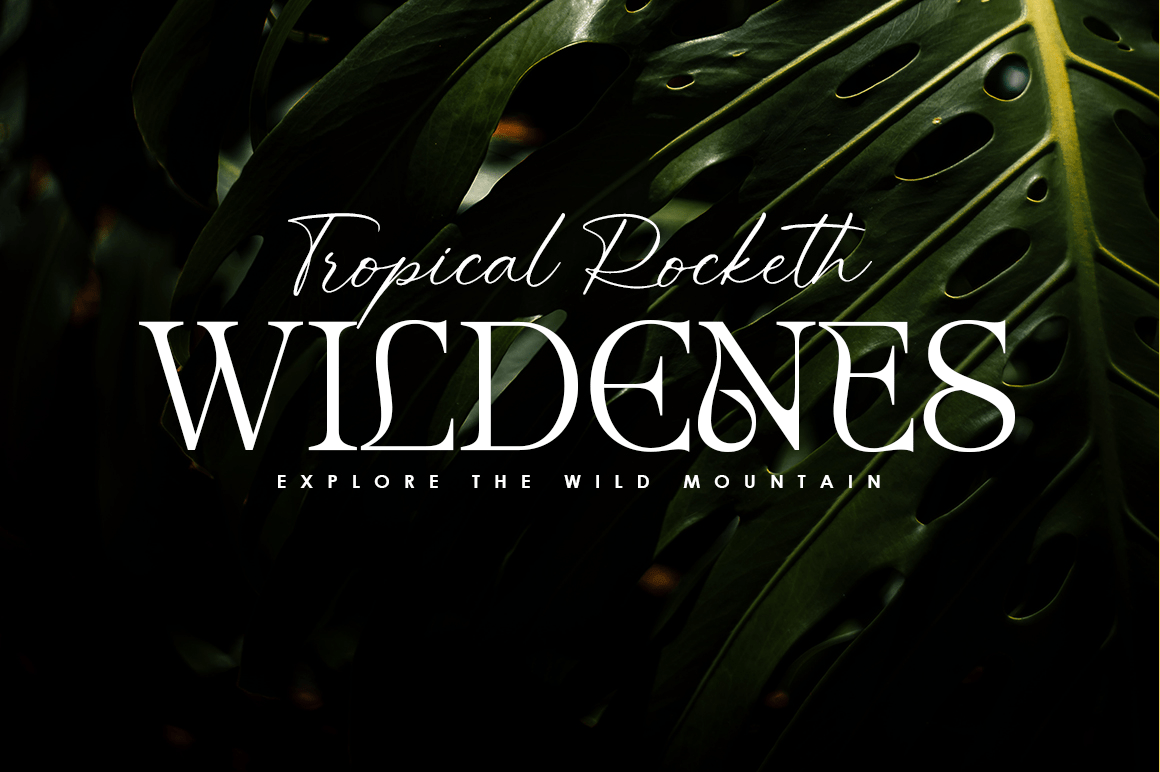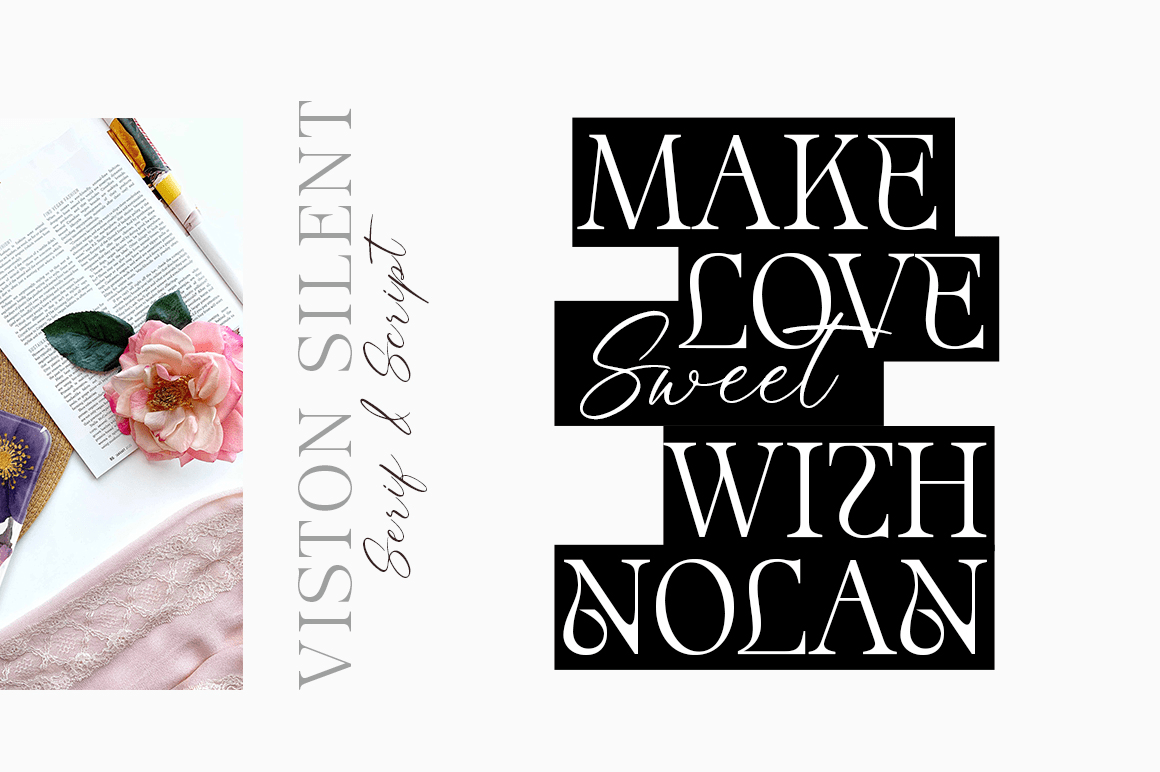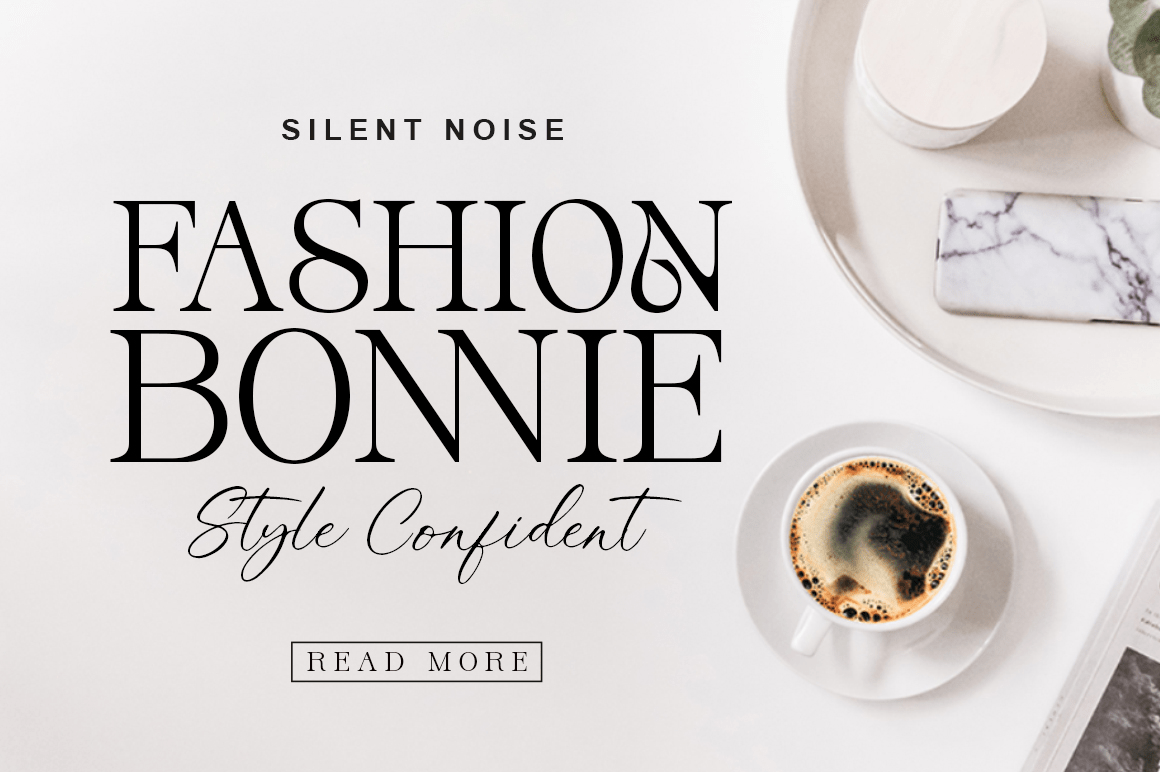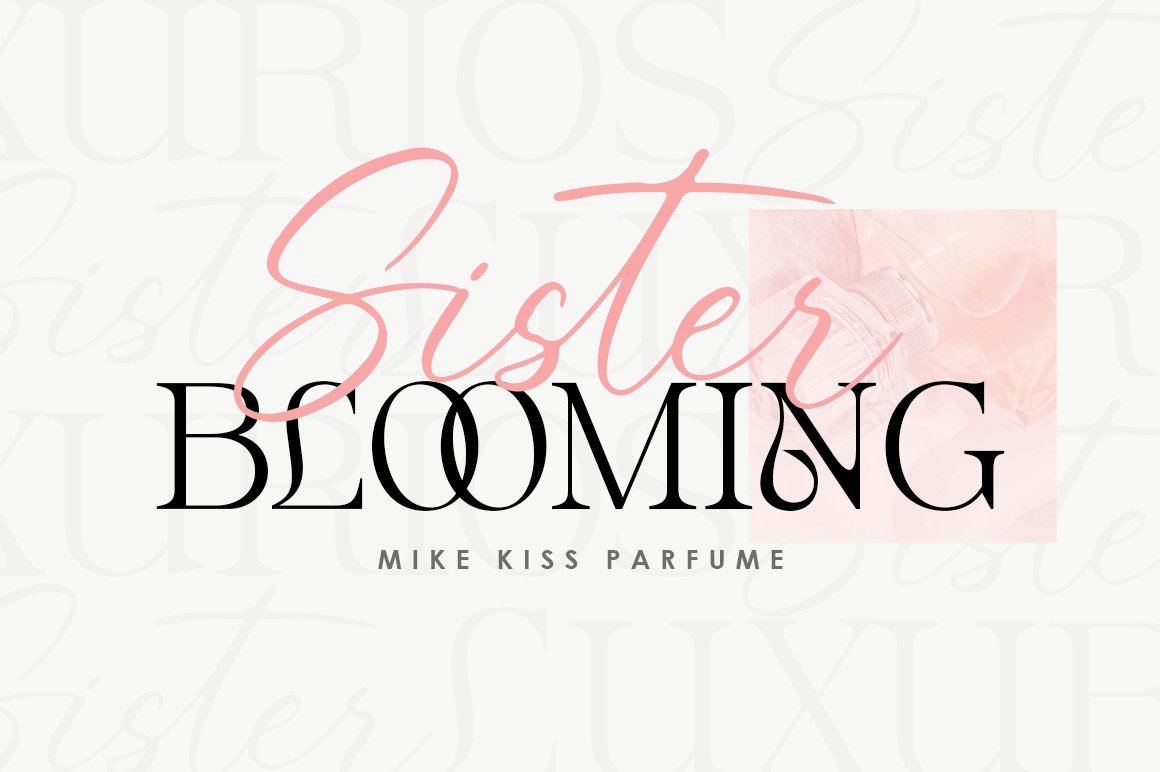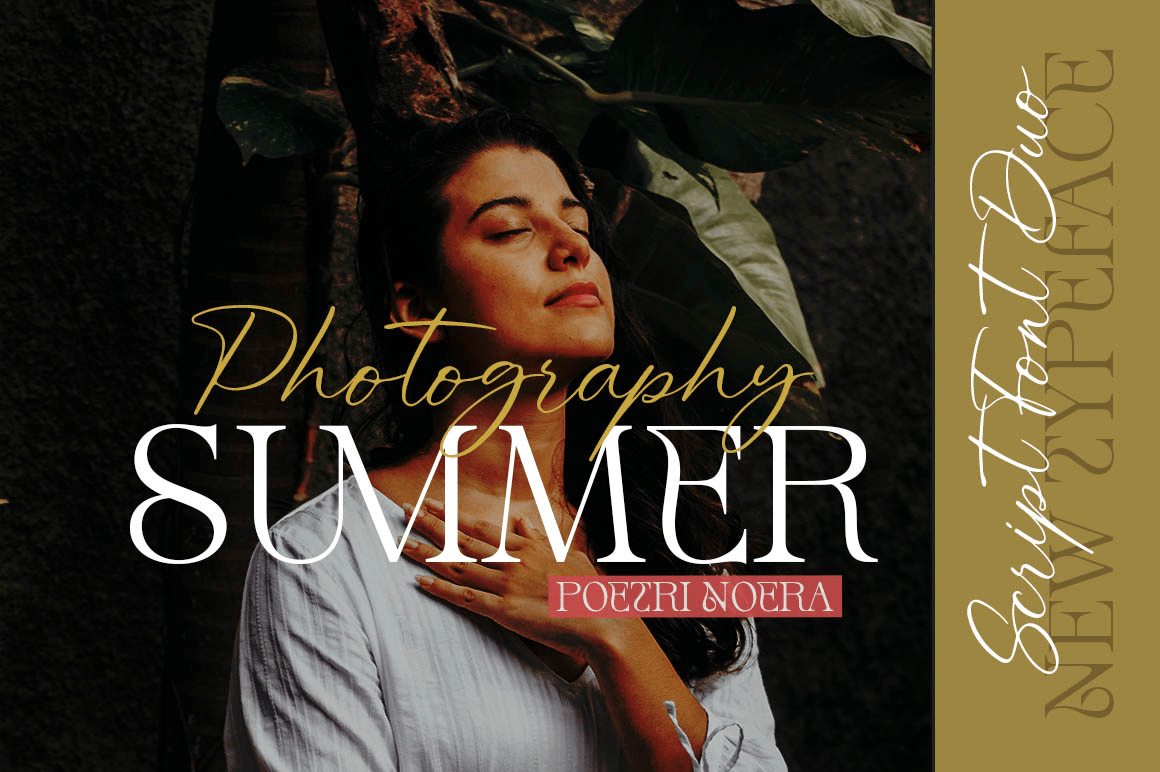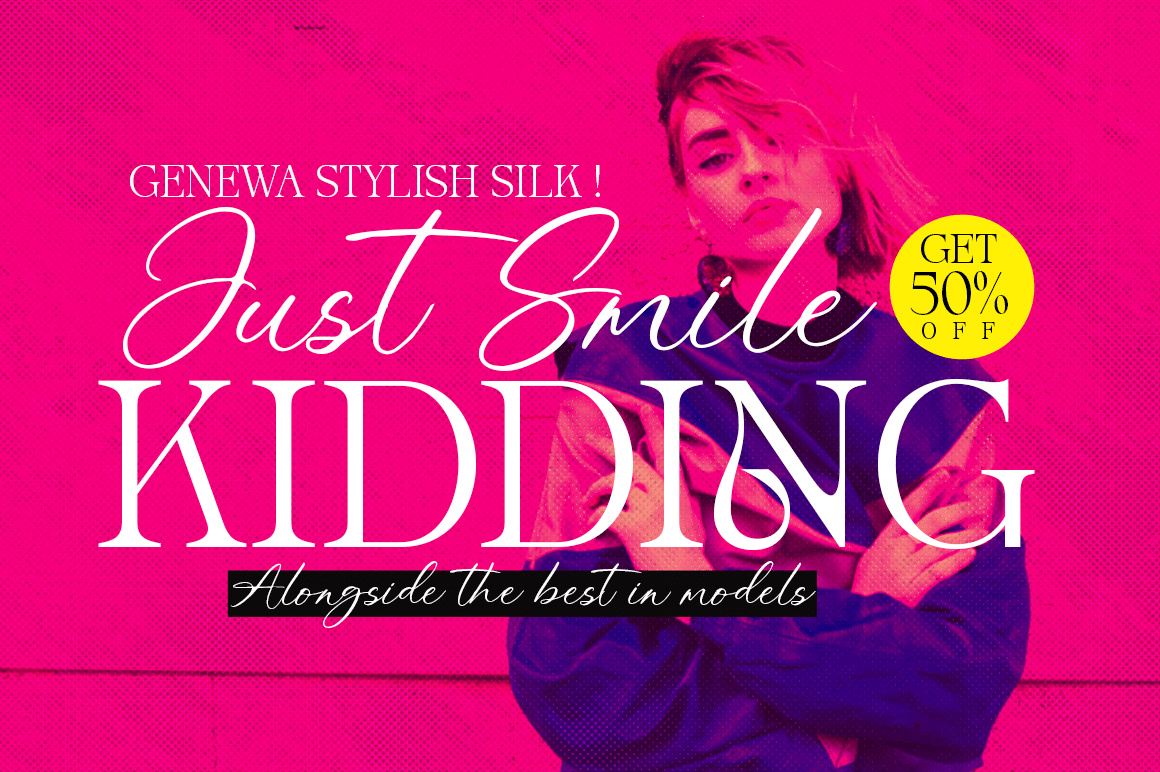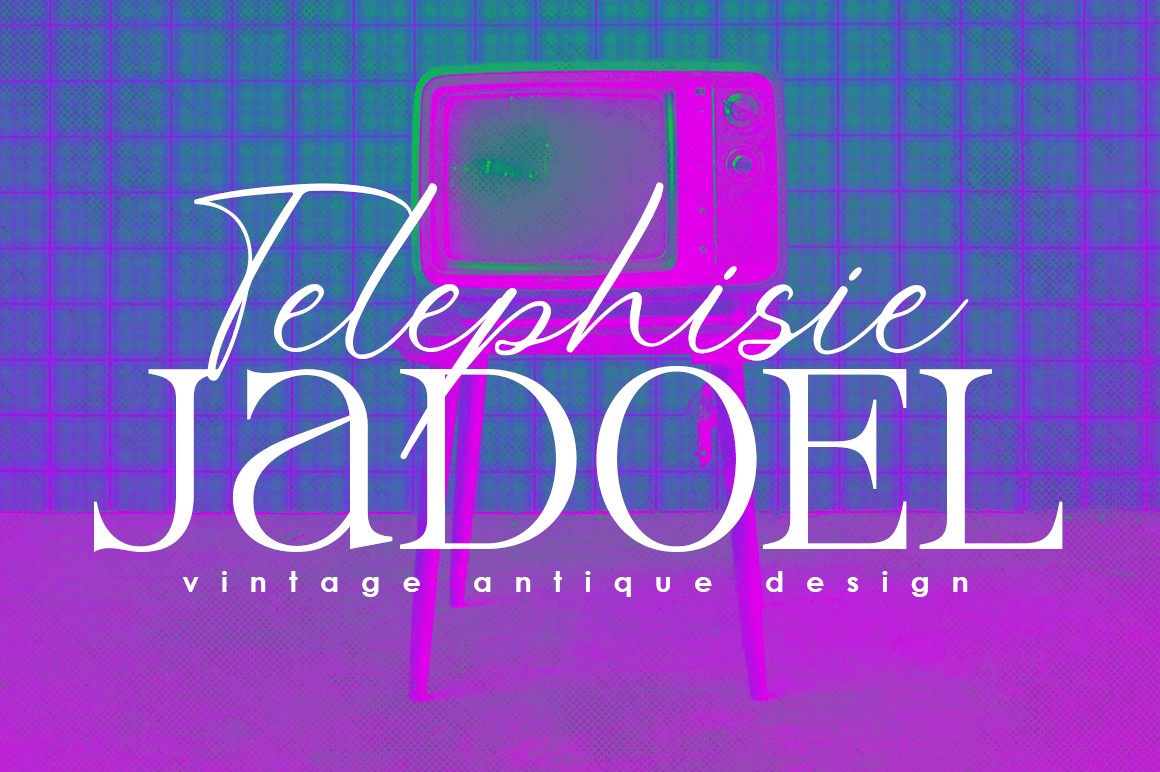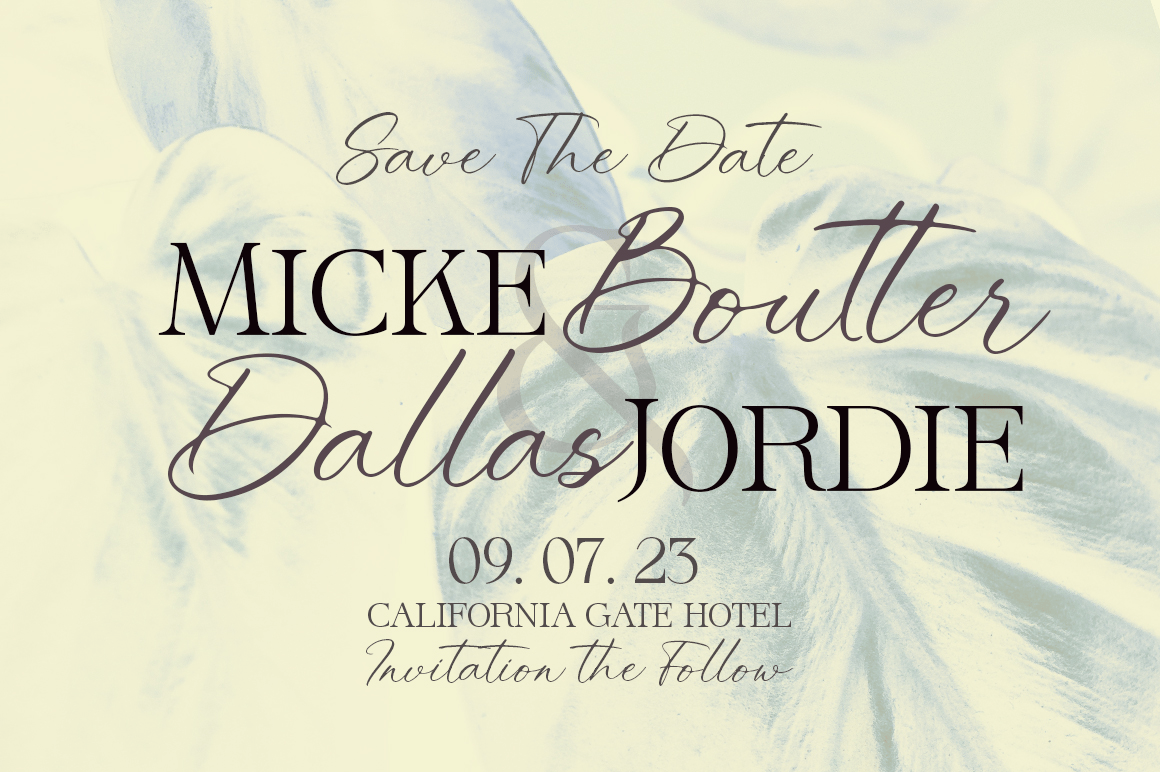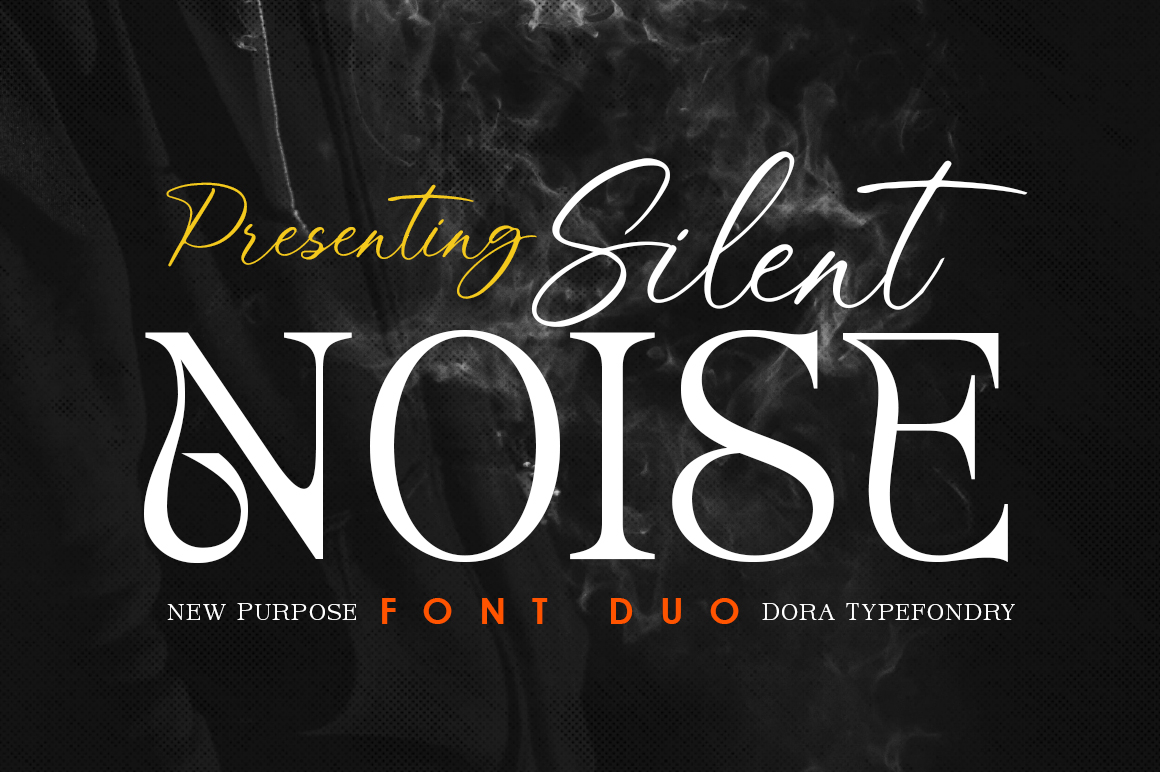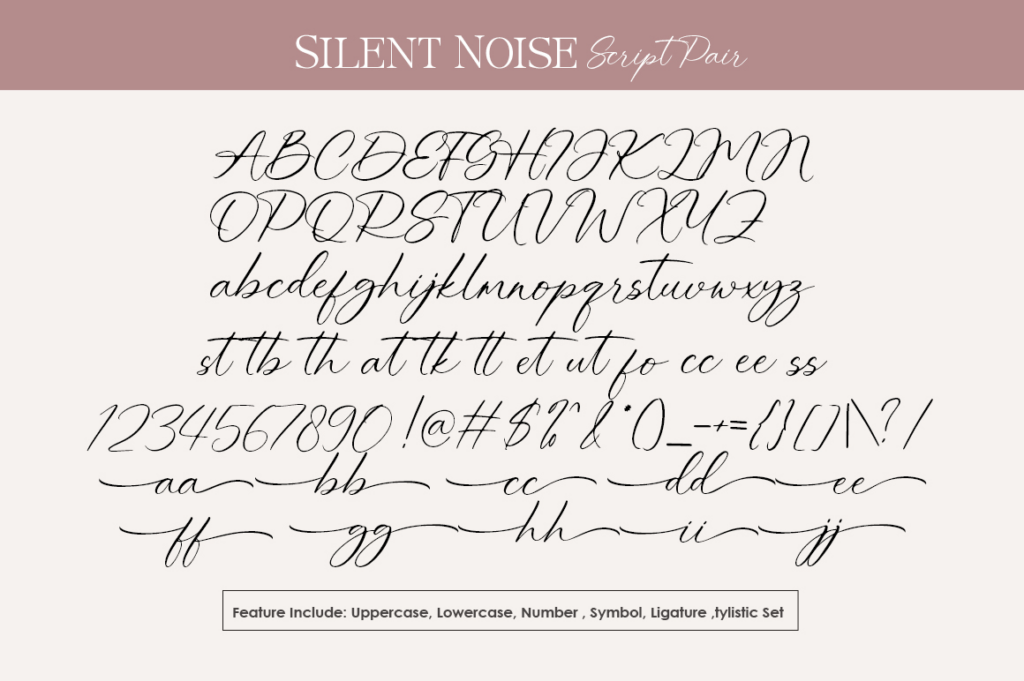
Silent Noise
About Silent Noise
Introducing Silent Noise, a stunning duo font that combines the timeless elegance of a serif typeface with the flowing elegance of calligraphy. This versatile font set includes two complementary styles that work together seamlessly to add sophistication…